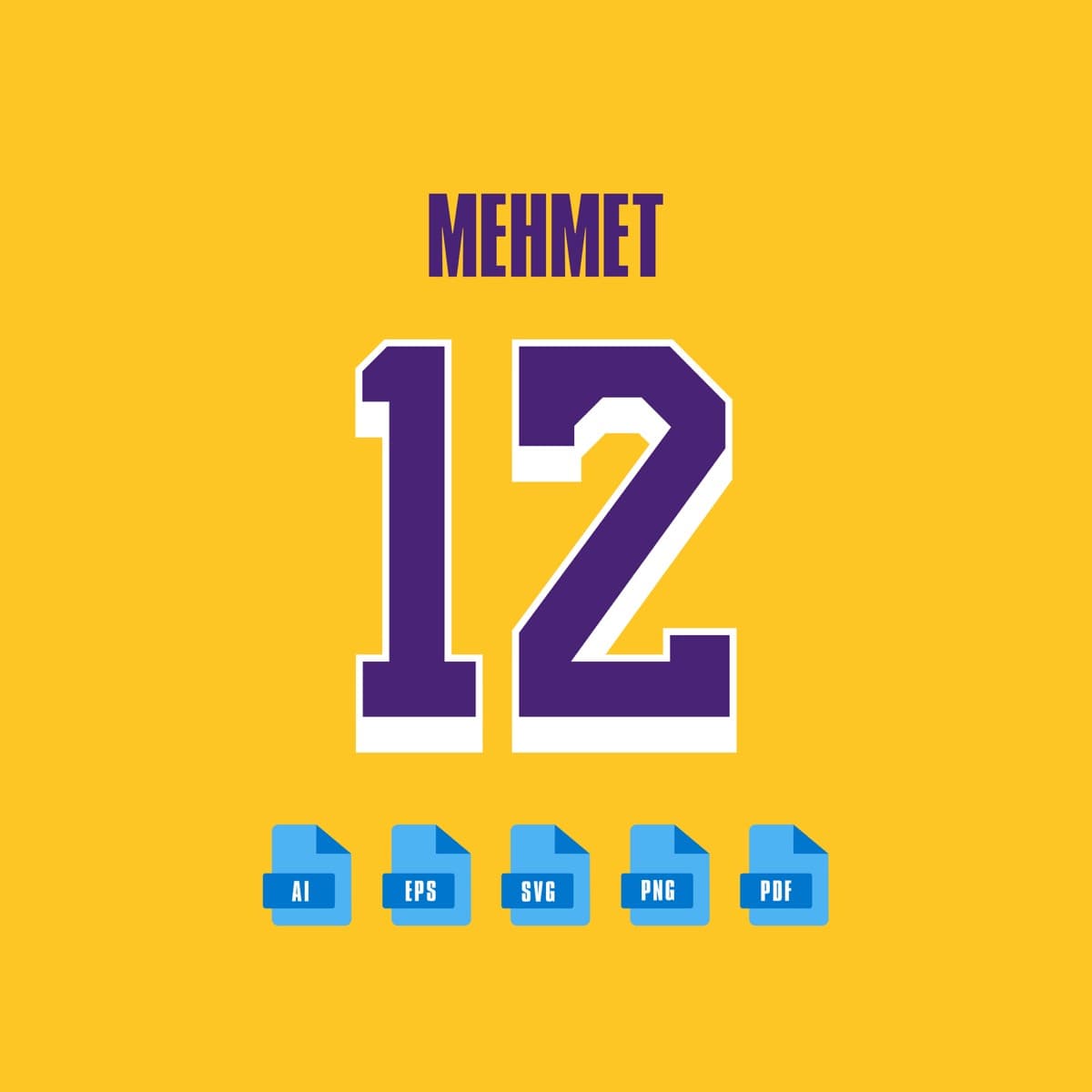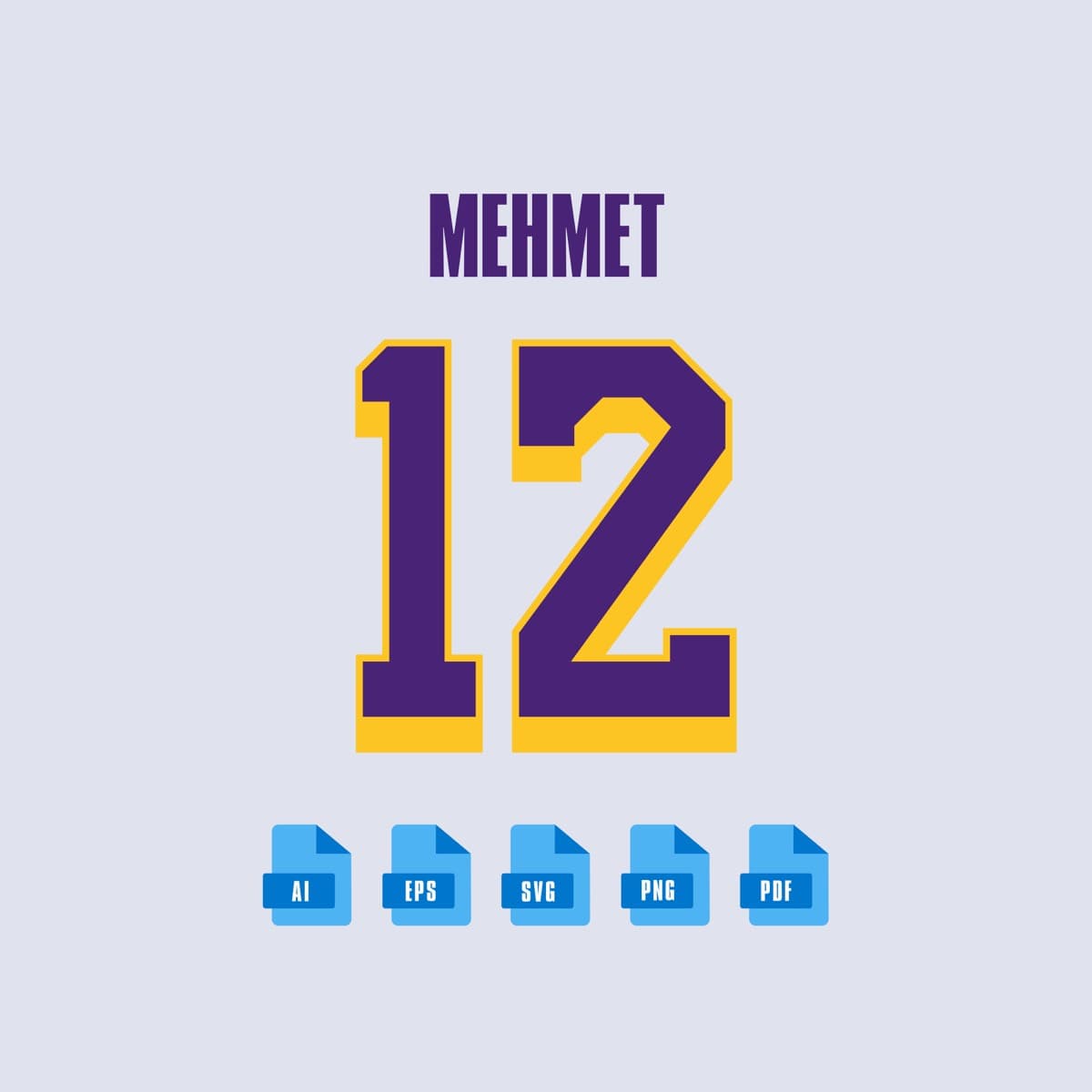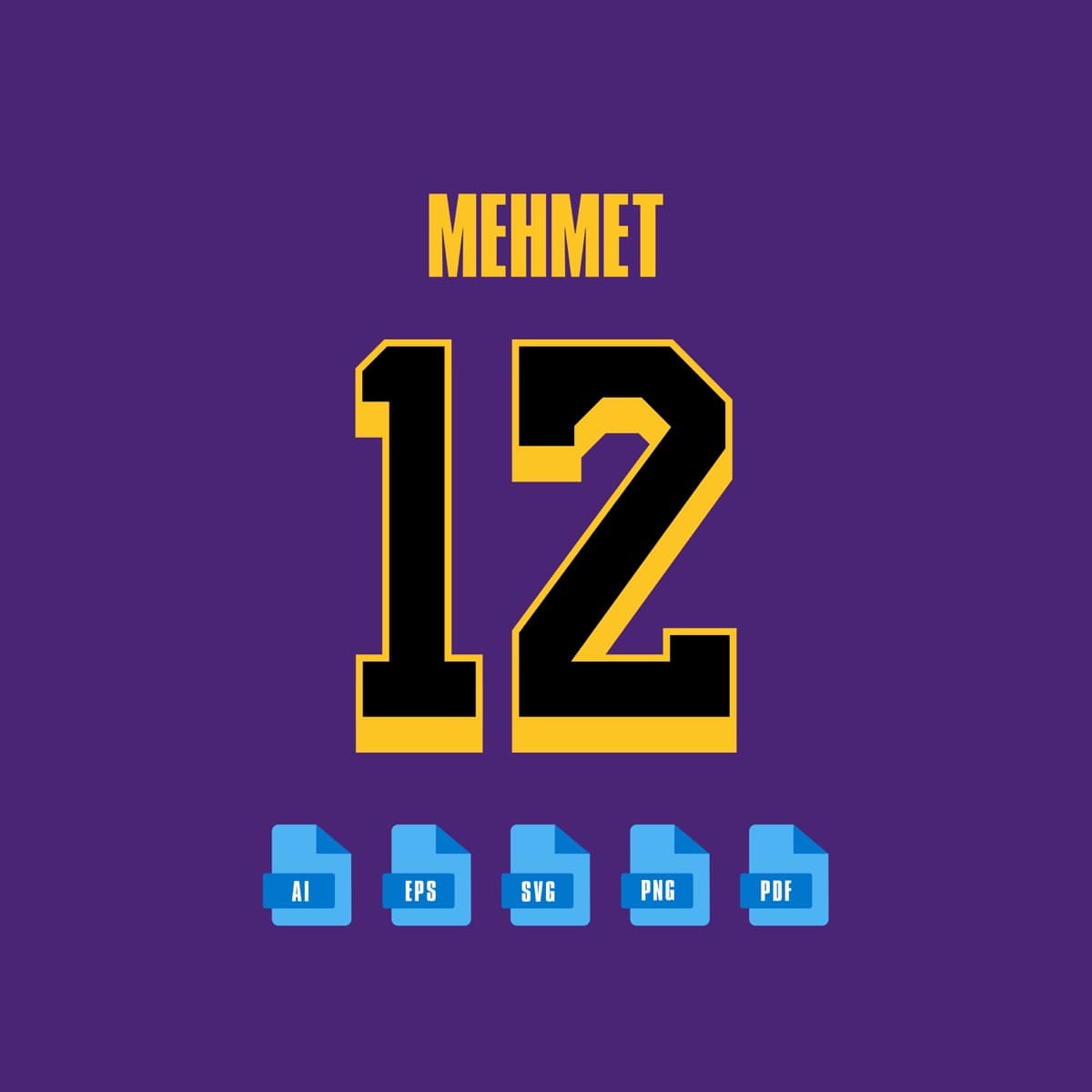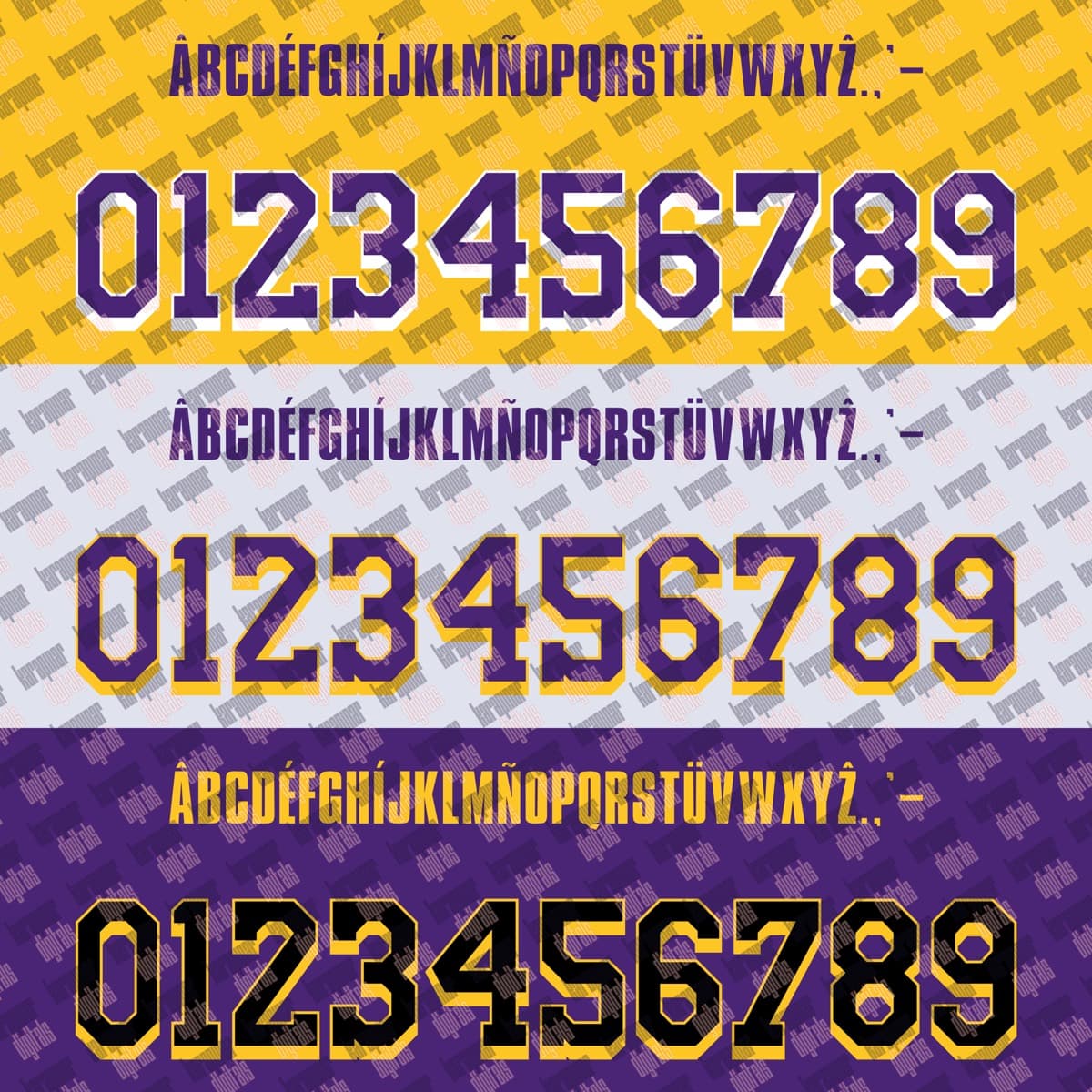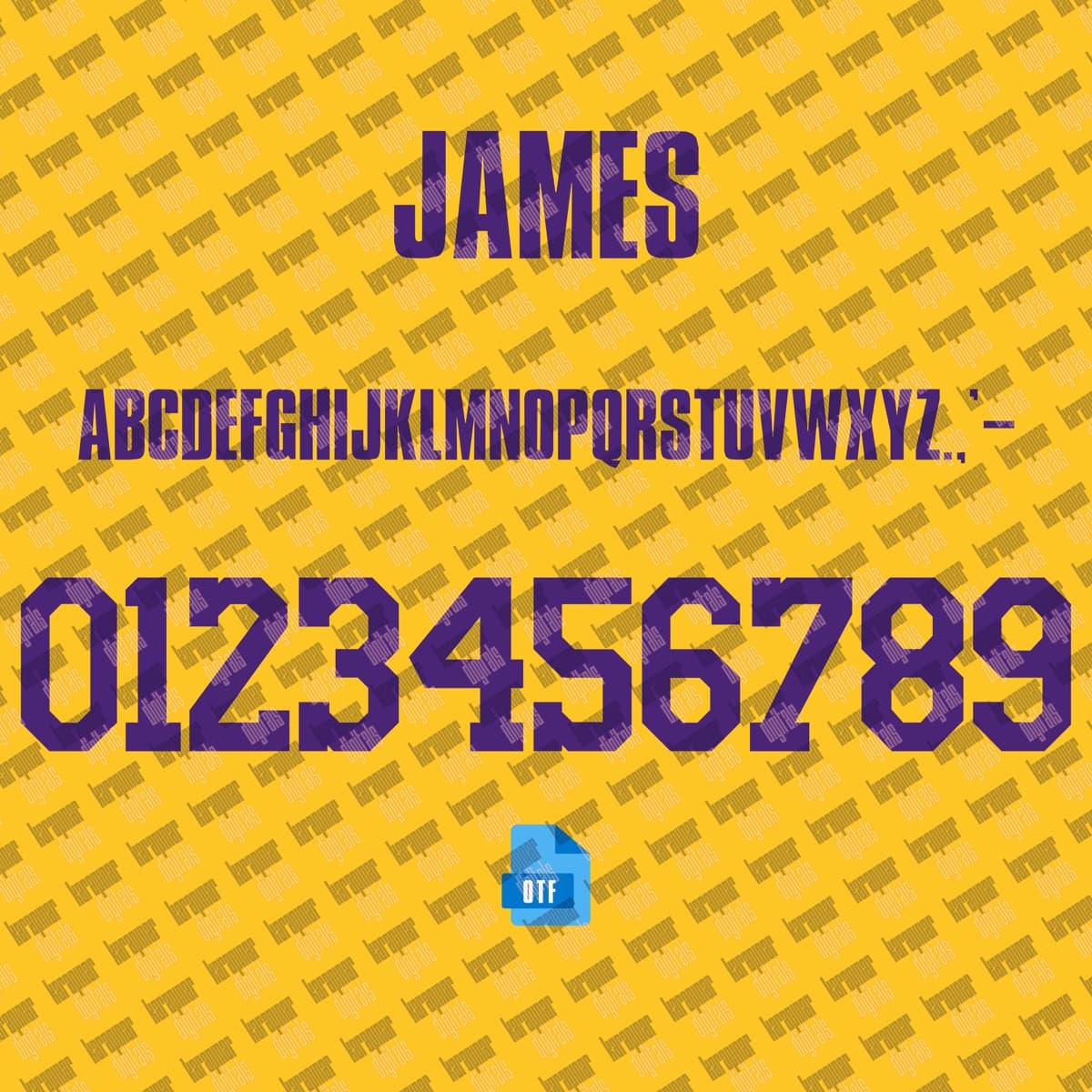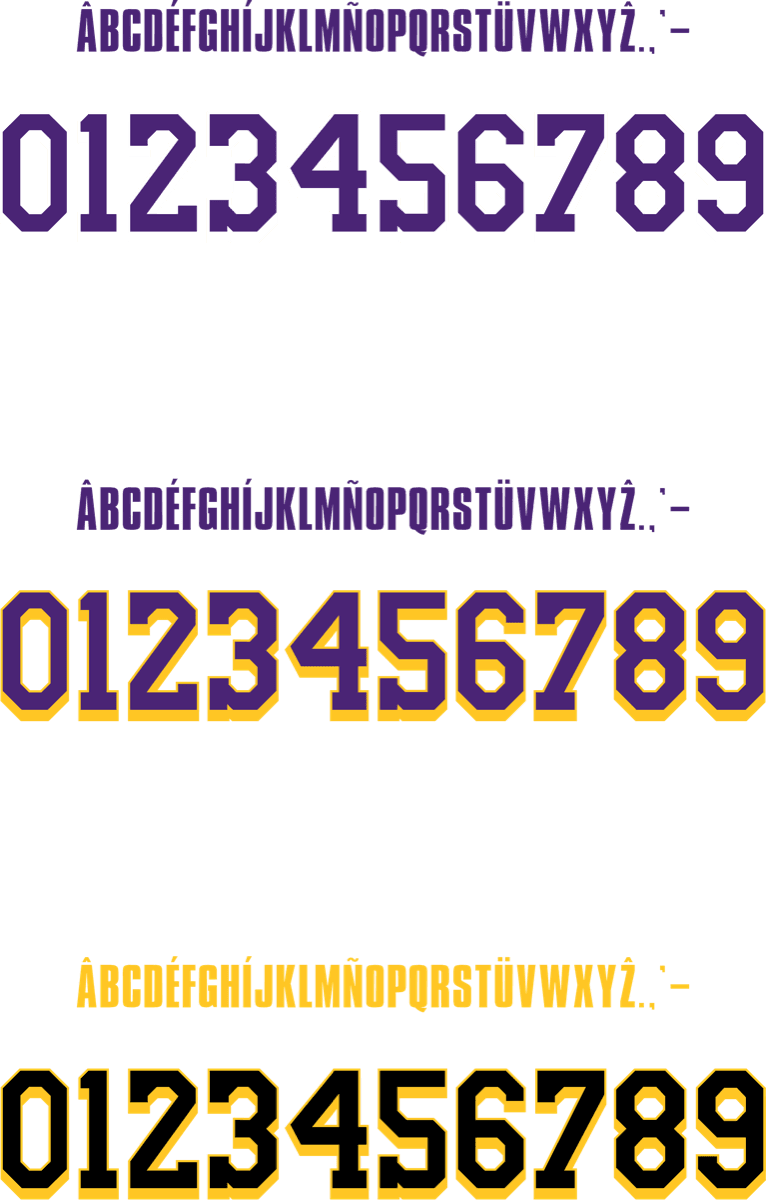
LA Lakers 2024 basketball jersey font for Los Angeles Lakers — vector letters and numbers preview
LA Lakers 2024
Los Angeles Lakers · 2024
A set inspired by the Los Angeles Lakers 2024 jersey typography, with a name and number system redrawn for print and screen. Original curves, consistent weight and a complete 0–9 numeral family.